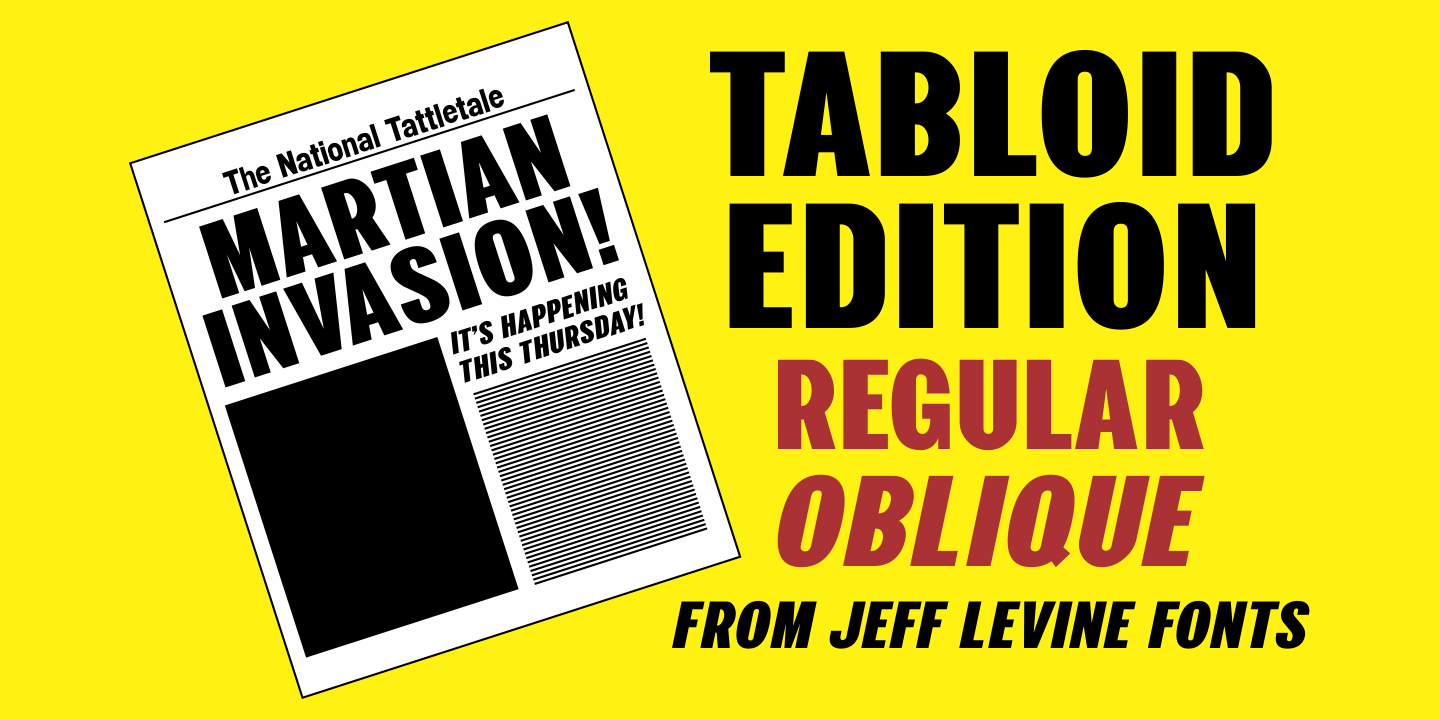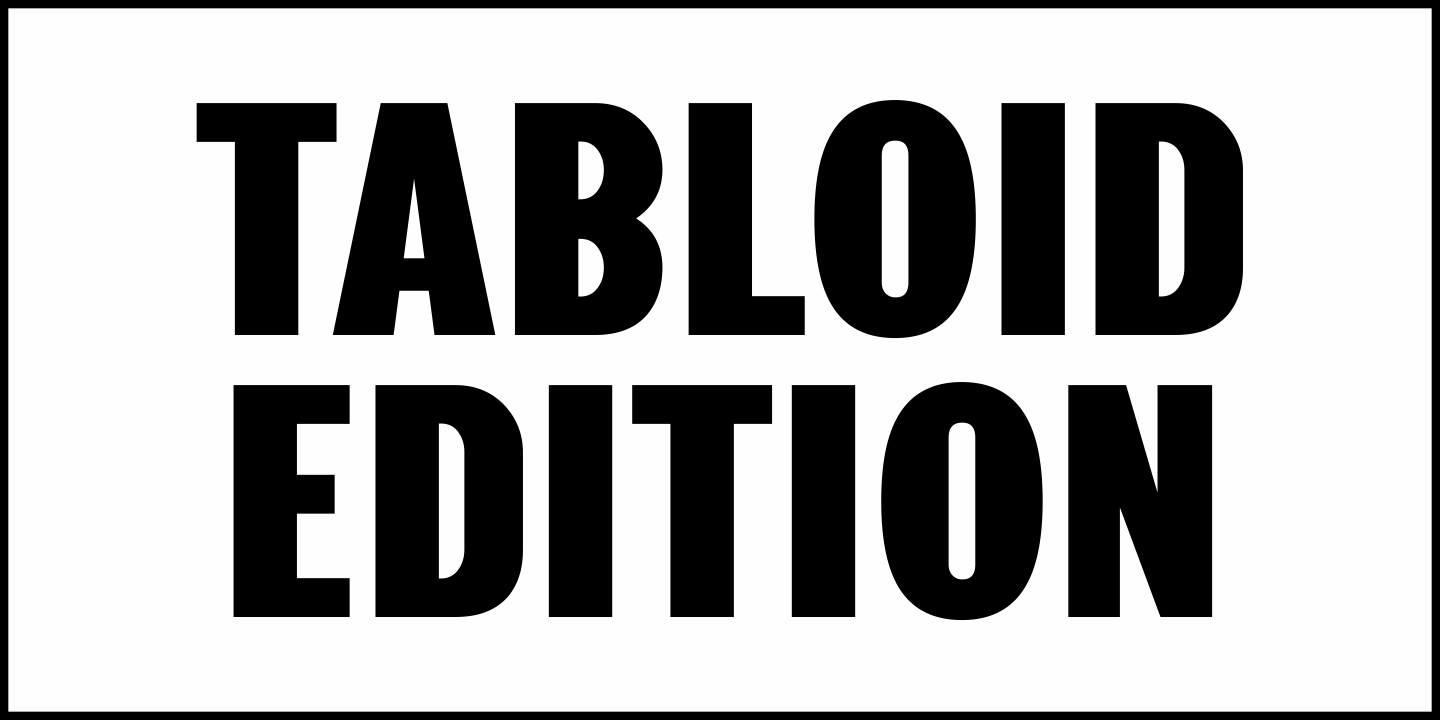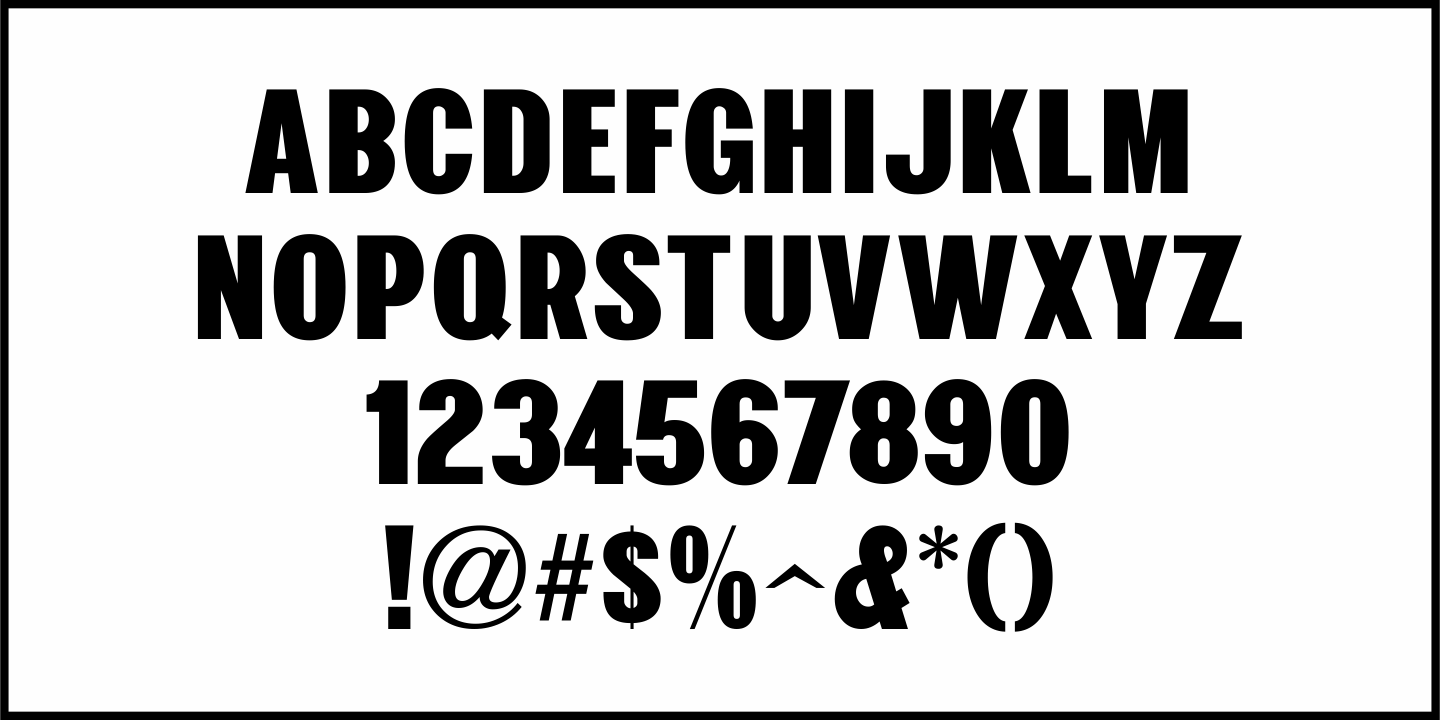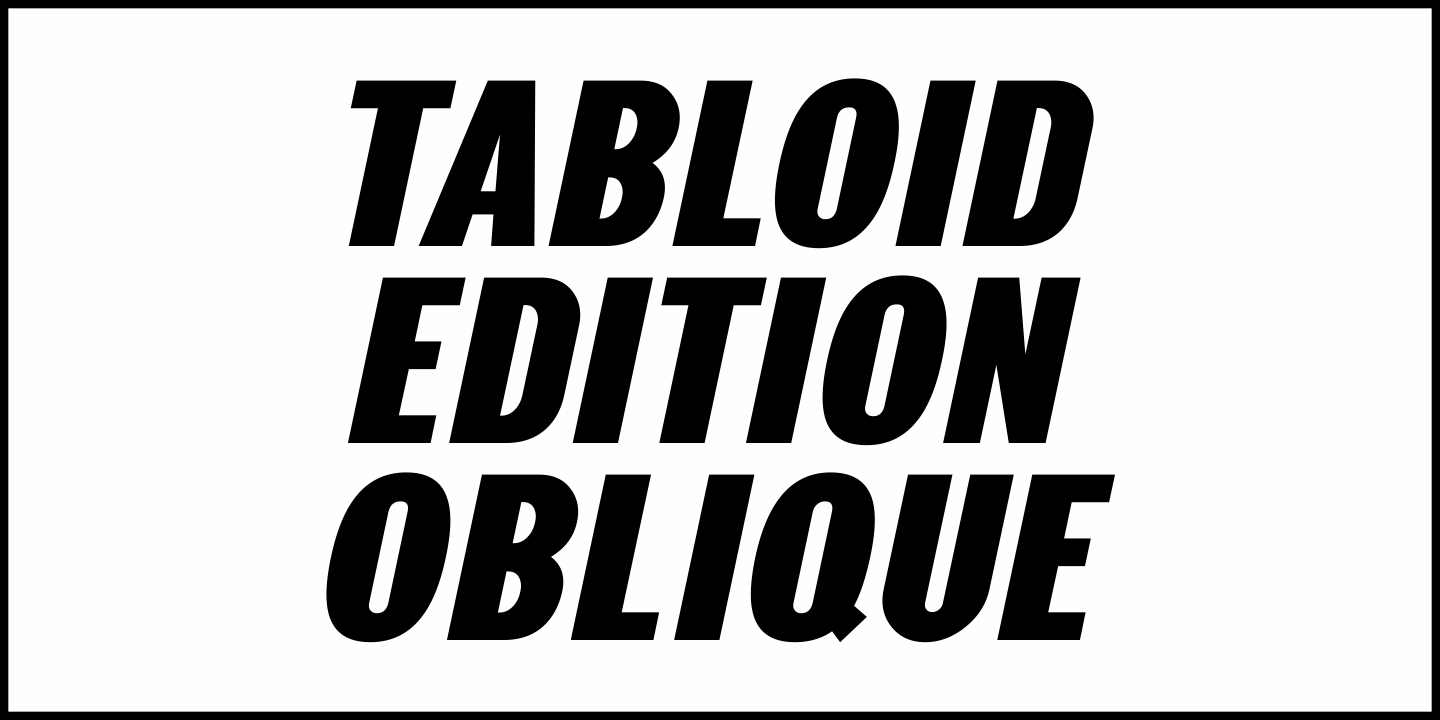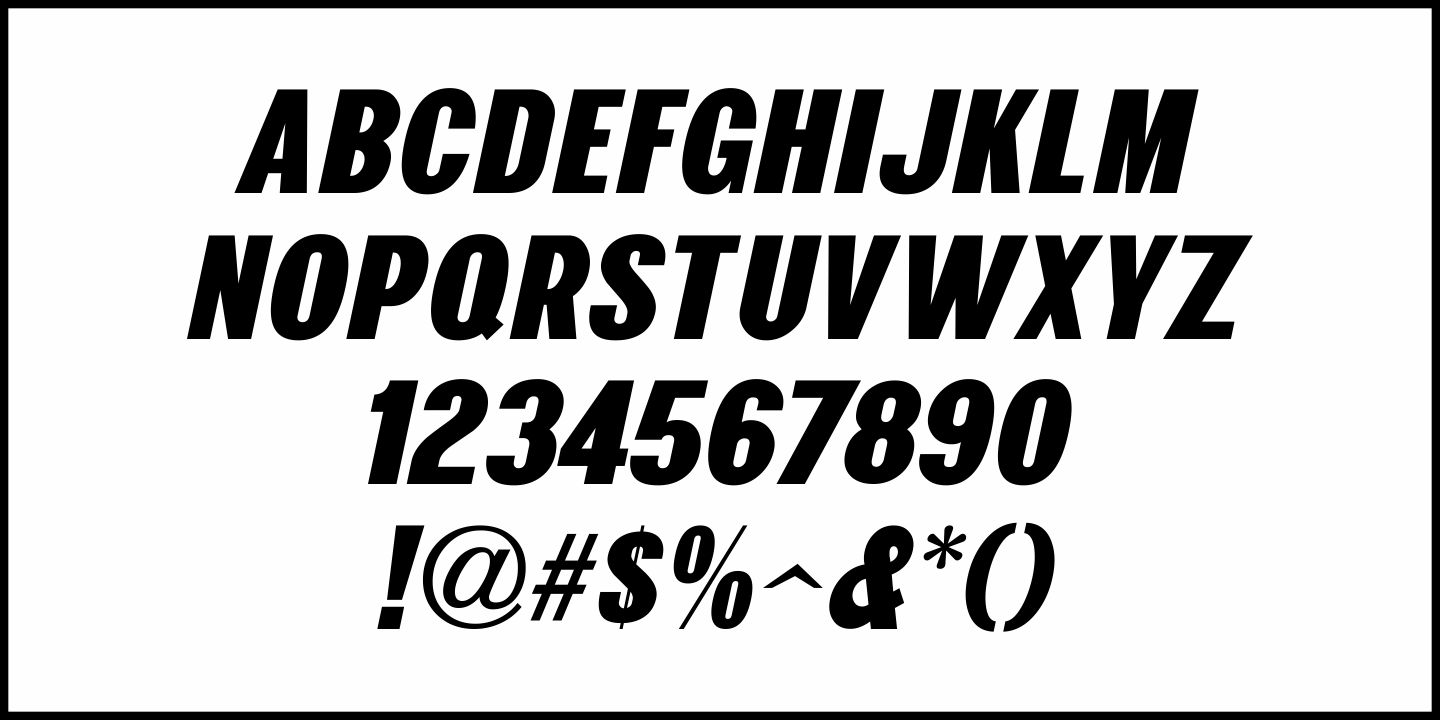
Tabloid Edition
The headline across the October 7, 1918 edition of the UK’s Daily Mail stated: "Germany Asks the Allies for Peace".
Set in extrabold sans serif lettering, it’s now available digitally as Tabloid Edition JNL in both regular and oblique versions.
This is another “redrawn from the headlines” typeface from Jeff Levine Fonts.
Tabloid Edition by Jeff Levine Fonts